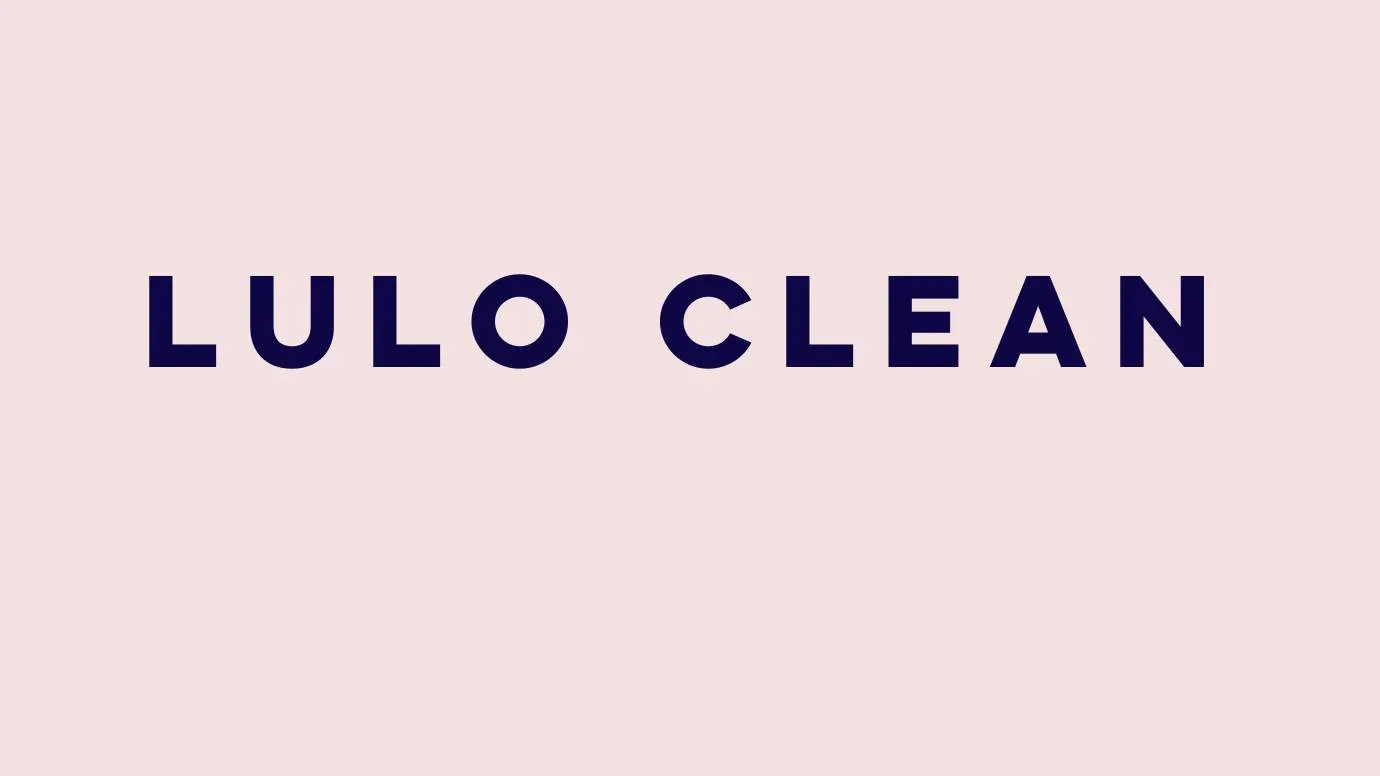
Lulo Clean Font Family is an imaginative sans-serif font family available in 10 variations such as One, One Bold, Two, Two Bold, among others. This beautiful font was crafted by the distinguished designer Ryan Martinson.
This typeface family is the agitated version of the original textured font family. This is friendly, retro, and amazing three-dimensional. It is available in all-caps and supports different languages.
Lulo Clean Font